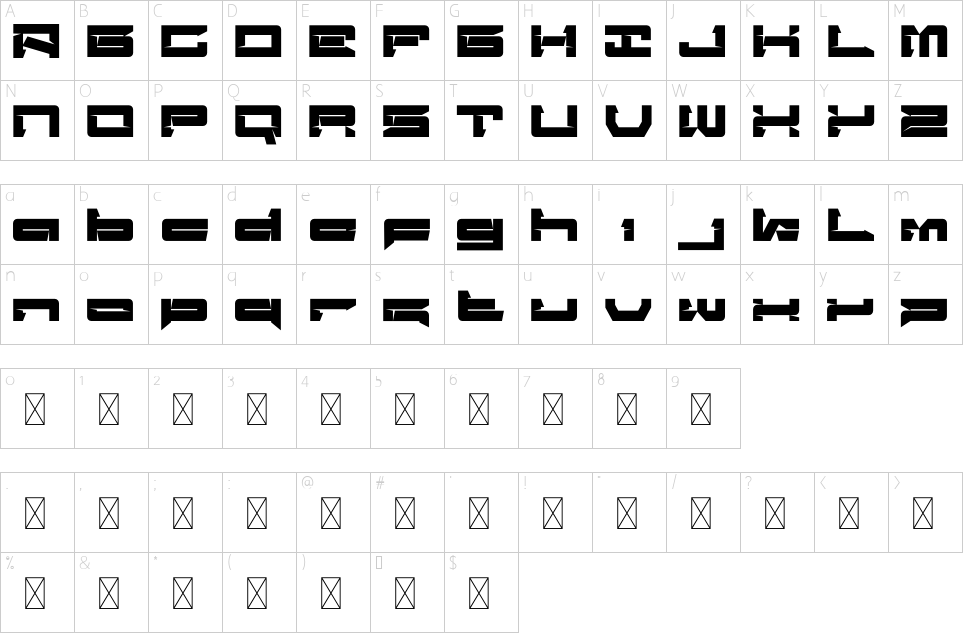
Coret Schriftart
Autoren HinweisEngineered for versatility, Coret Font fits seamlessly into a wide range of creative work. From game titles, logos, and app interfaces to headlines, branding, and digital art, this cyberpunk sans serif font adapts beautifully across media. Its expanded structure and bold weight make it a top choice for modern tech brands seeking strong visual impact. Coret Font is available for instant digital download in multiple licenses to suit personal, commercial, and corporate needs. ================================================================= Terms Of Use By downloading or using our font, you are read and accept to the Our Term and Use Agreement : This font is copyrighted and protected by the law. Usage of this font on any work without proper license is deemed as illegal. You might get fined for at least USD 3000 for this act. Please do understand that we have our own system for tracking the usage of our works on internet. - This Font is DEMO / PERSONAL USE ONLY NO COMMERCIAL USE ALLOWED! - Click this link to purchase in my website : https://koplexs.com/product/coret-font/ or on my other website https://coolestfont.com/product/coret-futuristic-display-font/ - If you need a custom license please contact us at :  - Any donation are acceptable and very appreciated. Here is Our Paypal account for donation : http://www.paypal.me/koplexs173 Follow our social media for update : - My Shop Website : https://koplexs.com/ - Other My Shop : https://coolestfont.com/ - Other Blog : https://leavime.com/ - My Blog : https://kukoh.com/ Koplexs Studio provides various types of fonts, namely: Serif Font, Sans Serif Font, Script Font, Signature Font, Display Font, Handwriting, cursive font, cute fonts, Vintage Fonts, Groovy Fonts, and other Styles Fonts. Keep Sharing Thank you. ZeichentabelleDateiinhalte